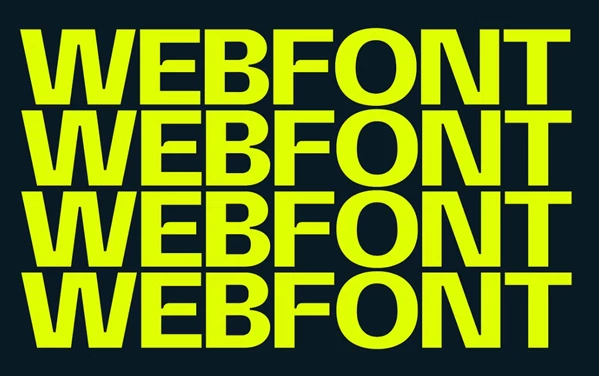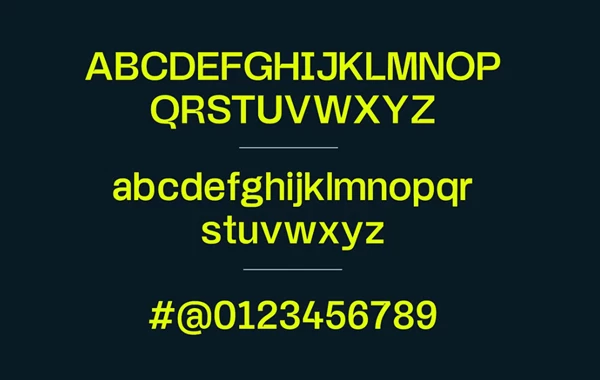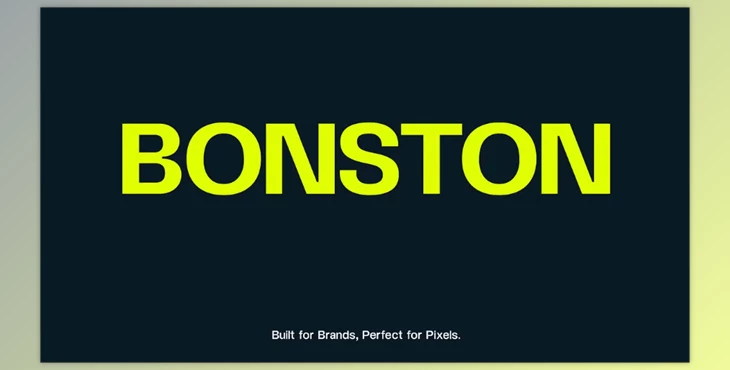
Bonston Display Typeface:
Designed primarily for designers and marketers who want their visuals to leave an indelible mark, Boston Display enables responsive creativity with impactful communications blend brilliance.
It’s packaged into four weights—Regular, Medium/SemiBold/Bold—and all styles feature great versatility. This makes them ideal for practically any web interface or printed material, from brand identity elements to captivating website print materials.
Some great features of Bonston Display Typeface:
- Offers four key weights: Regular, Medium, SemiBold and Bold, and Bold
- With Bonston Display, the Bold type will be timeless.